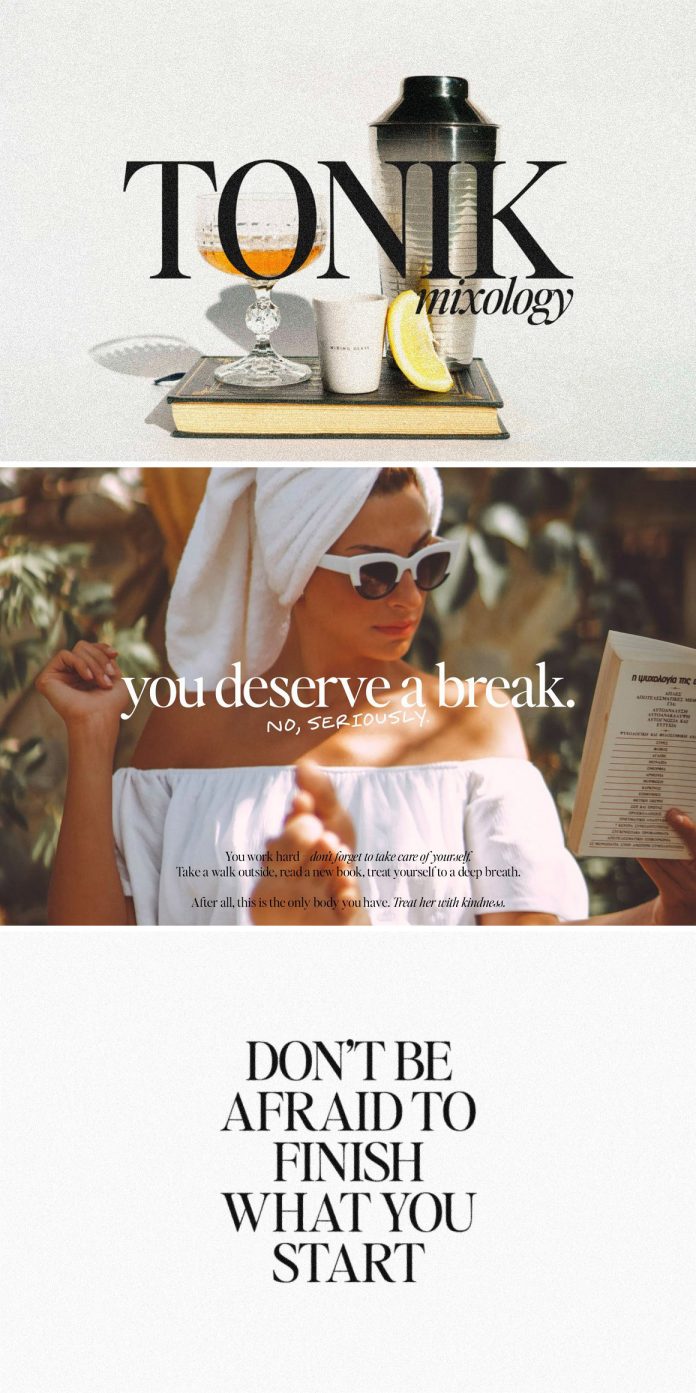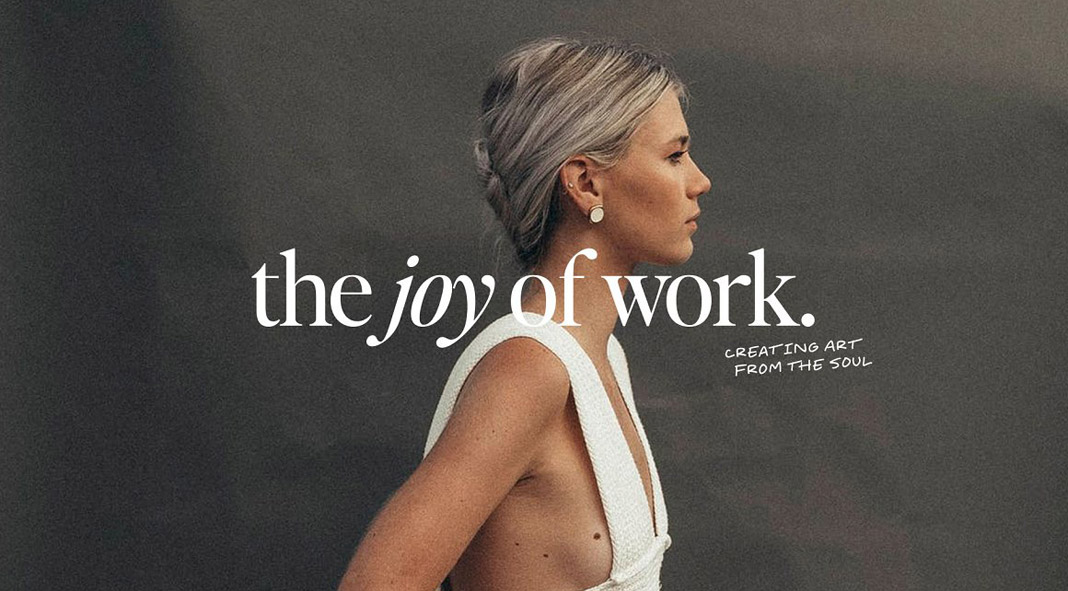
Editor’s Note, a clean serif font that comes with stunningly crisp upper and lowercase letters.
It’s no secret that there is a clean, editorial-type trend happening in design right now and Jen Wagner’s Editor’s Note font is one of the most beautiful examples we can show you at the moment. The typeface is characterized by crisp upper and lowercase letters. Especially in big, bold quotes—it’s fun to combine the regular and italic versions.